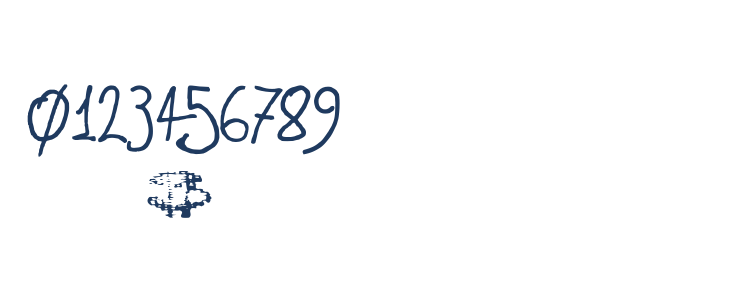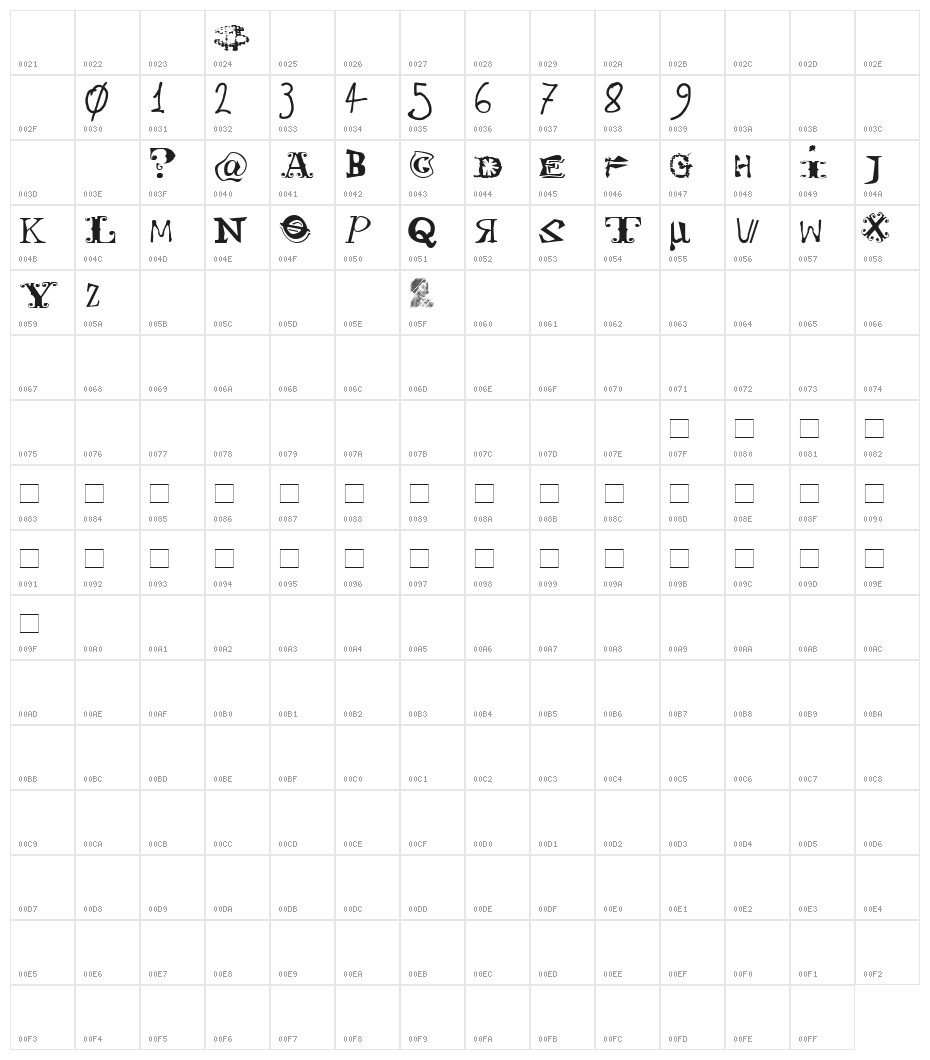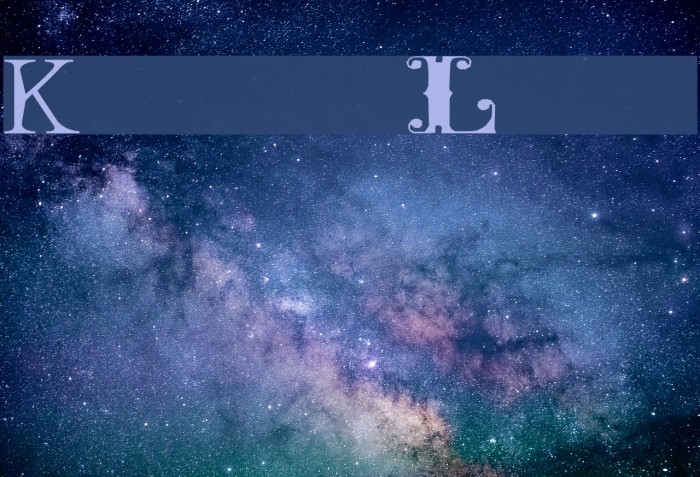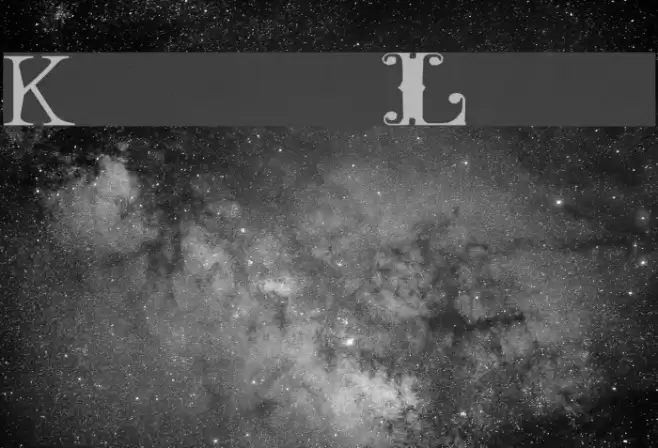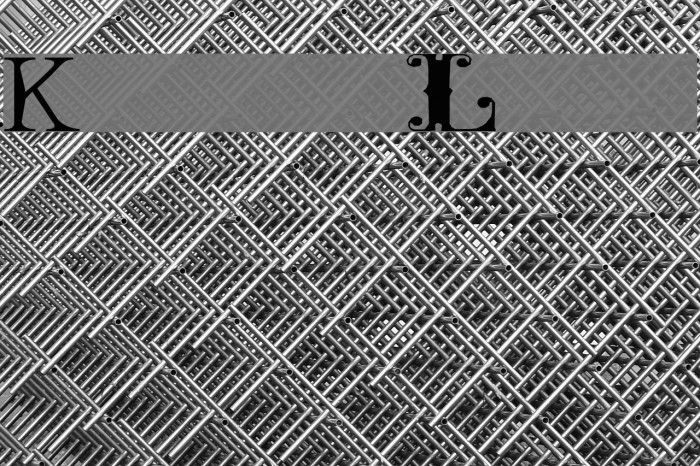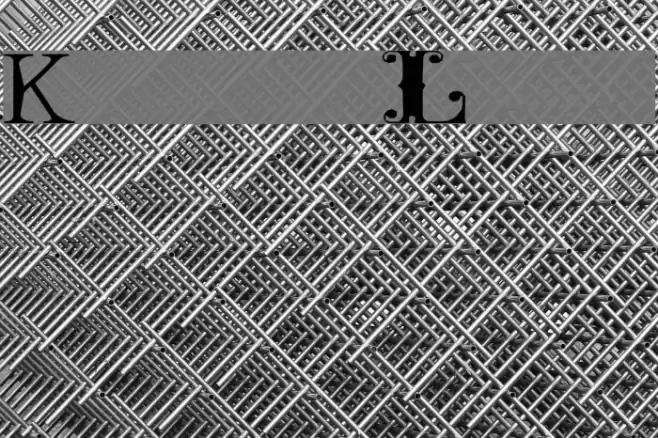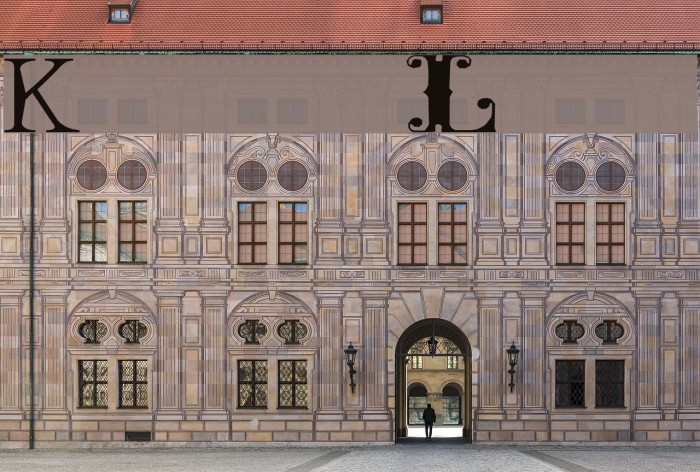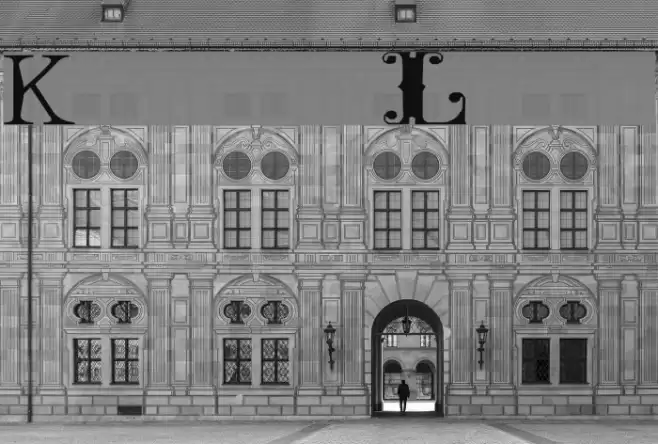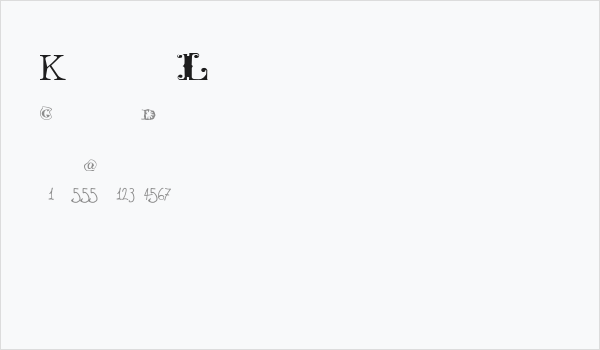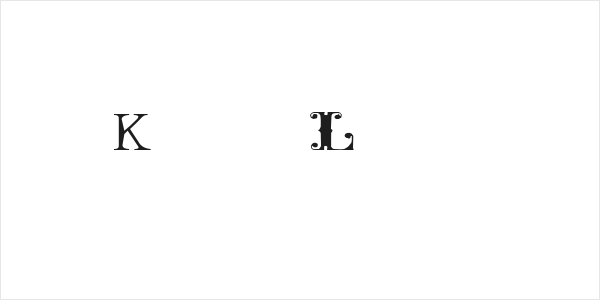
KitschLiebe Font
KitschLiebe Description
This font is a highly decorative and eclectic typeface that combines various artistic elements to create a unique and eye-catching appearance. Each letter features distinct embellishments, such as swirls, spikes, and abstract shapes, giving it a playful and whimsical feel. The uppercase letters are particularly ornate, with some incorporating geometric patterns and others featuring organic, flowing lines. The numbers maintain a more consistent style, with a handwritten, slightly irregular look that adds to the overall charm. This font is ideal for projects that require a bold and artistic statement, as it captures attention with its intricate details and creative flair.
| Proposed Projects | Ideal for creative projects such as posters, album covers, event invitations, and artistic branding. |